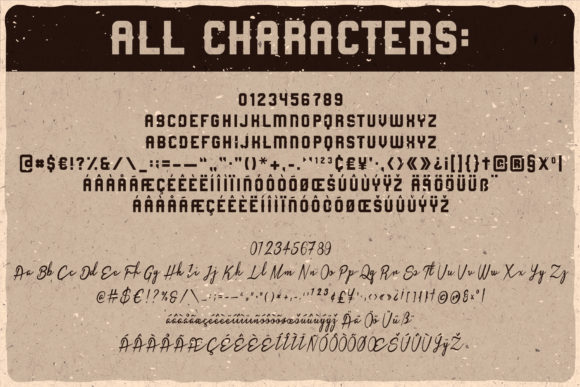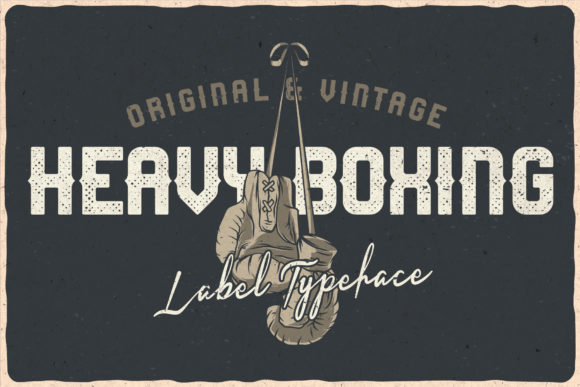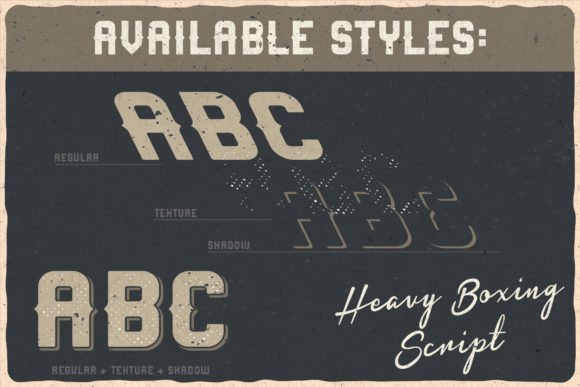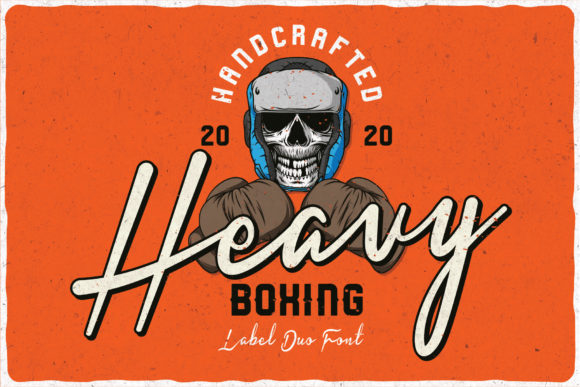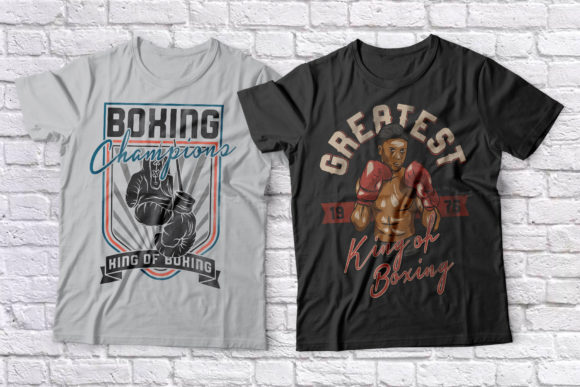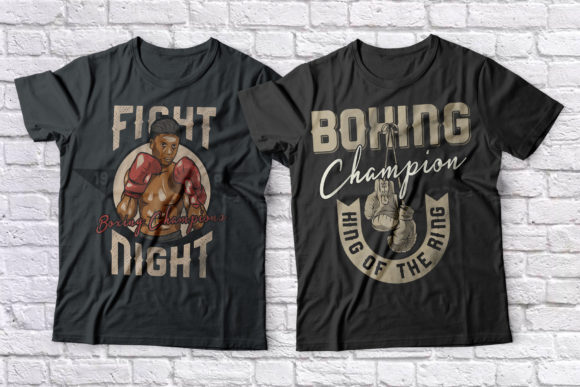
Introducing Heavy Boxing Font: The Ultimate Duo for Stunning Designs
Are you tired of using the same old fonts for your designs? Look no further! Heavy Boxing Font is here to revolutionize your creative projects with its stylish and incredibly unique duo font, consisting of a display and script font. This font is perfect for designers and crafters who want to add a touch of originality to their work.
What Makes Heavy Boxing Font So Special?
Heavy Boxing Font boasts an original vibe that sets it apart from other fonts. Its unique design creates lovely designs that are sure to capture attention. The font duo consists of a bold display font and an elegant script font, making it versatile for various design projects. Whether you’re working on a logo, poster, or social media graphic, Heavy Boxing Font is the perfect choice.
Key Features of Heavy Boxing Font
- Unique Design: Heavy Boxing Font has a one-of-a-kind design that will make your projects stand out.
- Duo Font: The font comes with two styles – a bold display font and an elegant script font.
- Versatile: Use it for various design projects, including logos, posters, social media graphics, and more.
- Easily Customizable: Experiment with different colors, sizes, and styles to create stunning designs.
How to Use Heavy Boxing Font in Your Designs
Heavy Boxing Font is perfect for designers and crafters who want to add a touch of personality to their work. Whether you’re creating logos, branding materials, or social media graphics, this font duo is sure to impress. Its unique design and versatility make it an excellent addition to any design project.
Benefits of Using Heavy Boxing Font
- Stand Out Designs: Create designs that capture attention and leave a lasting impression.
- Time-Saving: With its versatility, you can use Heavy Boxing Font for multiple design projects, saving you time and effort.
- Professional Look: Add a touch of professionalism to your designs with this high-quality font duo.
In conclusion, Heavy Boxing Font is a stylish and incredibly unique duo font that is perfect for designers and crafters. Its original vibe and versatility make it an excellent addition to any design project. With its easy-to-use design and customizable features, you can create stunning designs that showcase your creativity. So, add Heavy Boxing Font to your design toolkit today and get ready to take your designs to the next level!